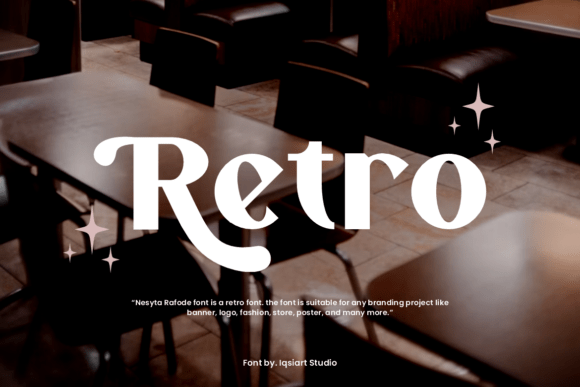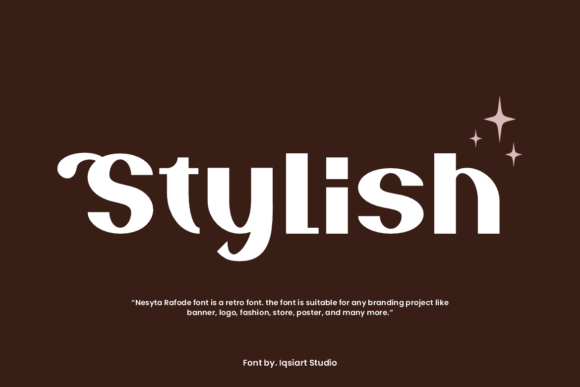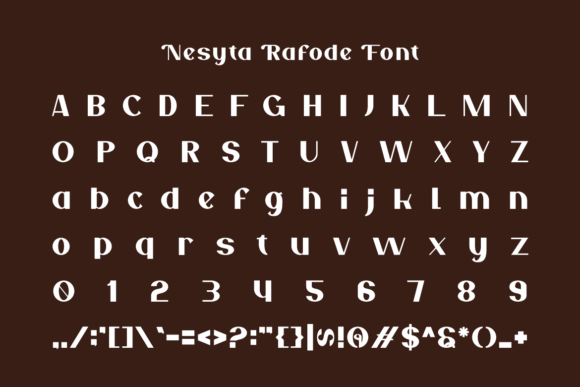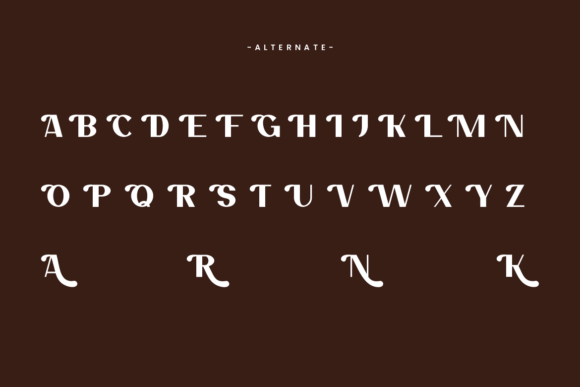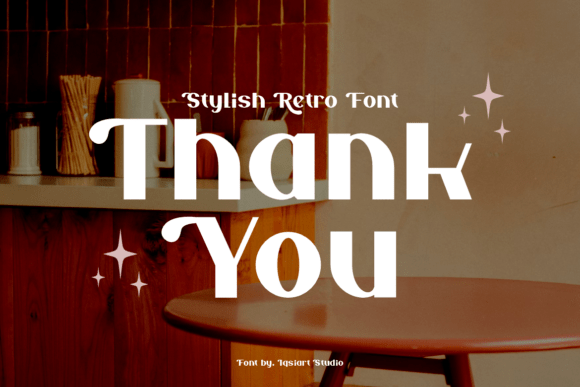
Introduction to Nesyta Rafode Font
Have you ever found yourself staring at a blank canvas, eager to bring your creative project to life, but struggling to find the perfect font to set the tone? That’s exactly where Nesyta Rafode Font comes in – a stylish retro font that effortlessly blends classic elegance with a playful, modern twist. Its unique blend of flowing curves and structured forms creates a balanced aesthetic that’s both nostalgic and fresh, making it the perfect design resource for designers looking to evoke a sense of vintage sophistication with a contemporary edge.
What sets Nesyta Rafode Font apart is its versatility, making it a must-have for any designer’s toolkit. Whether you’re creating a beautiful, elegant logo or designing eye-catching posters, album covers, or packaging for products that require a touch of class, this high-quality font is up to the task. And with its PUA encoding, you’ll have effortless access to all glyphs, swashes, and alternate characters, allowing you to add a personal touch to your design with ease.
- Nesyta Rafode Font boasts a unique, stylish design that is perfect for adding a touch of elegance to any project.
- The font is available in a single weight, making it ideal for use in headings, titles, and other prominent design elements.
- With its modern and sophisticated design, Nesyta Rafode Font is an excellent addition to any designer’s toolkit.
Honest Review: Nesyta Rafode Font
I recently had the opportunity to use the Nesyta Rafode Font in a creative project, and I must say, it’s been a game-changer. This font is a hidden gem, and I’m excited to share my thoughts on it.
What works well: ✨ The Nesyta Rafode Font is incredibly versatile and can be used for a wide range of design projects. It has a unique, hand-drawn feel that adds a touch of personality to any design. The font is also highly customizable, allowing you to adjust the size, color, and style to suit your needs.
What doesn’t work so well: ⚠️ One of the limitations of this font is that it’s not suitable for all design projects. The transparent background may not work well with complex or busy designs, and the font may get lost in the background. Additionally, the font is not as widely supported as some other fonts, so you may encounter compatibility issues with certain software or platforms.
- Unique, hand-drawn design
The Nesyta Rafode Font is a high-quality design resource perfect for creative projects. With its unique style and transparent background, it can add a touch of sophistication to any design.
The Nesyta Rafode Font is perfect for creative projects such as logos, business cards, brochures, and social media graphics. Its unique style and transparent background make it ideal for designs that require a touch of sophistication and elegance.